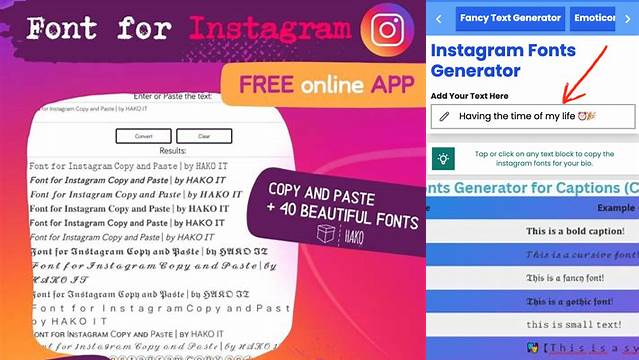
Instagram Fonts: Generate Cool Fonts For Your Bio & Captions
Hey guys! Ever scrolled through Instagram and seen some super cool fonts in captions or bios and wondered how to get them? You're not alone! Instagram fonts are a fantastic way to make your profile stand out, express your personality, and grab attention. But here's the thing: Instagram itself doesn't offer a ton of font choices. So, how do people achieve those funky, stylish texts? That's where IG Fonts Generator tools come into play, and we're going to dive deep into everything you need to know about them. These fantastic resources, often found on sites like igfonts.io, allow you to generate a variety of eye-catching fonts that you can easily copy and paste into your Instagram bio, captions, comments, and even stories. The beauty of these tools lies in their simplicity – you just type your text, and the generator presents you with a myriad of font options to choose from. This opens up a world of creative possibilities, enabling you to inject your personal flair into your Instagram presence. You can use different fonts to emphasize key points in your captions, add a touch of elegance to your bio, or simply make your profile more visually appealing. The strategic use of fonts can significantly enhance your brand identity on Instagram. Consistent use of specific fonts can make your posts and profile instantly recognizable, helping you to build a strong and cohesive brand image. Think of it as adding a unique visual signature to your content. Moreover, the novelty of different fonts can capture the attention of your followers. In a feed saturated with standard text, a stylish font can be the difference between a scroll-past and an engagement. Experimenting with various fonts can also be a fun way to express your creativity and showcase your personality. Whether you're aiming for a playful vibe, a sophisticated look, or something completely unique, the right font can help you convey your message more effectively. So, let's explore the world of Instagram fonts and discover how you can use them to elevate your Instagram game!
What are Instagram Fonts and Why Do They Matter?
Okay, so what exactly are these magical Instagram fonts we're talking about? Well, Instagram, in its standard form, offers a limited selection of fonts. To get those fancy, cursive, or bold texts you see on other profiles, you need a little help. This is where IG Fonts Generator tools, like the one found at igfonts.io, become your best friend. These tools utilize Unicode characters – a vast library of symbols and characters – to create font styles that aren't natively available on Instagram. It's kind of like a clever workaround that allows you to use a huge variety of unique fonts without any complicated coding or software. The magic behind these generators lies in their ability to transform your plain text into stylish variations that Instagram recognizes and displays correctly. When you type your message into the generator, it instantly converts your text into a range of font options, each crafted using a different set of Unicode characters. This process allows you to create everything from elegant cursive scripts to bold, attention-grabbing headlines, all with a simple copy and paste. This is why Instagram fonts are so important. In a world of endless scrolling, you need to grab attention! A well-chosen font can make your bio more readable, your captions more engaging, and your overall profile more memorable. Think about it: a bold, eye-catching font in your bio can instantly highlight your brand's personality or a special offer. A playful, handwritten-style font in your stories can add a personal touch and make your content feel more authentic. And a consistent use of specific fonts across your posts can help build a strong visual identity for your brand. Beyond aesthetics, fonts can also play a crucial role in conveying the tone and message of your content. A formal, serif font might be perfect for a professional announcement, while a quirky, sans-serif font could be ideal for a fun, lighthearted post. The ability to choose from a diverse range of fonts allows you to tailor your message to your audience and create a more impactful connection. Moreover, using unique fonts can help you stand out from the crowd. With millions of users vying for attention on Instagram, having a distinct visual style is essential for cutting through the noise. By incorporating different fonts into your content, you can create a unique and memorable presence that sets you apart from your competitors. Ultimately, Instagram fonts are a powerful tool for enhancing your online presence. They allow you to express your creativity, strengthen your brand identity, and connect with your audience in a more meaningful way. So, let's dive deeper into how you can use these fonts to transform your Instagram game!
How to Use an IG Fonts Generator (Like igfonts.io): A Step-by-Step Guide
Alright, let's get practical! How do you actually use an IG Fonts Generator like igfonts.io? Don't worry, it's super easy, and I'm going to break it down step-by-step. Trust me, you'll be rocking those stylish fonts in no time! These generators are designed to be user-friendly, ensuring that anyone, regardless of their technical skills, can create stunning text variations with ease. The process is incredibly straightforward, making it accessible to both beginners and seasoned Instagram users. Whether you're looking to add a touch of flair to your bio, craft attention-grabbing captions, or spice up your stories, these tools provide a hassle-free way to elevate your content. The key advantage of using an IG Fonts Generator is its simplicity. There's no need to download any software, install complex applications, or learn intricate design techniques. All you need is a web browser and a creative idea. The online interface of these generators is designed to be intuitive, guiding you through the process with clear instructions and visual cues. This ease of use allows you to focus on the creative aspect of your content, rather than getting bogged down in technical details. Moreover, the real-time preview feature of most IG Fonts Generators is a game-changer. As you type your text, you can instantly see how it looks in various fonts, allowing you to experiment and choose the perfect style for your message. This eliminates the guesswork and ensures that the final result aligns with your vision. The ability to visualize your text in different fonts as you create it is a powerful tool for crafting compelling content. It allows you to fine-tune your message and ensure that it resonates with your audience. Whether you're aiming for a bold statement or a subtle touch of elegance, the real-time preview helps you make informed decisions about your font choices. So, let's walk through the steps together and unlock the full potential of these amazing tools. By the end of this guide, you'll be a pro at creating eye-catching text that will make your Instagram profile shine.
- Head to an IG Fonts Generator: Open your web browser (Chrome, Safari, Firefox – whatever you prefer!) and go to a site like igfonts.io. There are tons of these generators out there, but igfonts.io is a great, reliable option.
- Type Your Text: You'll usually see a big text box where you can type whatever you want. This could be your bio, a caption, a comment – anything!
- Scroll Through the Font Options: As you type, the generator will automatically create a bunch of different font styles for your text. Scroll down and browse the options. You'll find everything from cursive and bold to bubble letters and cool symbols.
- Copy Your Favorite Font: Once you find a font you love, simply click the "Copy" button next to it. This will copy the text in that font to your clipboard.
- Paste into Instagram: Now, head over to Instagram and go to where you want to use your new font. This could be your bio (Edit Profile), a caption (when posting a photo or video), a comment, or even an Instagram Story (using the text tool). Paste the text (usually by long-pressing and selecting "Paste") into the text box.
- Ta-da! You're Done! Your text will now appear in your chosen font on Instagram. Pretty cool, right?
Tips for Using Instagram Fonts Effectively
Okay, you know how to use an IG Fonts Generator, but let's talk strategy! How do you use Instagram fonts effectively? It's not just about throwing a fancy font on everything; it's about using them to enhance your message and brand. The strategic use of Instagram fonts can significantly elevate your content, making it more engaging, memorable, and aligned with your brand identity. However, it's crucial to approach this creative tool with a thoughtful plan. Overusing fonts or choosing styles that clash with your overall aesthetic can have the opposite effect, making your profile look cluttered and unprofessional. Therefore, it's essential to understand the nuances of font selection and how different styles can convey different moods and messages. A key aspect of using Instagram fonts effectively is consistency. If you're aiming to build a strong brand presence, it's wise to choose a few signature fonts and stick with them across your content. This consistency helps create a cohesive visual identity that your followers can easily recognize. Think of your chosen fonts as a part of your brand's personality – they should reflect your values, style, and the overall message you want to convey. On the other hand, a jarring mix of fonts can create a sense of visual chaos and dilute your brand's message. Therefore, it's best to limit your font palette to a few complementary styles that work well together. This doesn't mean you can't experiment, but it's important to maintain a consistent base to ensure a polished and professional look. Another critical consideration is readability. While some fonts may look visually stunning, they might not be easy to read, especially on small screens. It's essential to prioritize clarity over aesthetics, ensuring that your message is easily accessible to your audience. A beautiful font that no one can decipher is ultimately ineffective. Therefore, always test your fonts on different devices and screen sizes to ensure they remain legible. Think about the purpose of your text and choose fonts that align with that purpose. Bold, attention-grabbing fonts might be perfect for headlines or call-to-actions, while more elegant, understated fonts could be ideal for body text or captions. By carefully considering the context in which you're using the font, you can create a more impactful and engaging experience for your audience. So, let's delve into some specific tips that will help you master the art of using Instagram fonts effectively. By following these guidelines, you can ensure that your font choices enhance your content and contribute to a stronger, more cohesive brand presence on Instagram.
- Don't Overdo It: Using too many different fonts can make your profile look cluttered and confusing. Stick to 2-3 fonts max, and use them consistently across your profile.
- Consider Readability: Some fancy fonts look great but are hard to read. Make sure your chosen font is clear and legible, especially on smaller screens.
- Match Your Brand: Choose fonts that reflect your brand's personality. A playful brand might use a quirky font, while a professional brand might opt for something classic and clean.
- Use Fonts for Emphasis: Use different fonts to highlight key words or phrases in your captions or bio. This can help draw attention to important information.
- Test It Out: Before you commit, see how your text looks on different devices and screen sizes. Some fonts might appear differently on a phone versus a tablet.
Common Mistakes to Avoid When Using Instagram Fonts
We've talked about the dos, so now let's chat about the don'ts. There are some common mistakes people make when using Instagram fonts, and I want to make sure you avoid them! Being aware of these pitfalls can save you from creating content that looks unprofessional, confusing, or even off-putting. The ultimate goal is to use fonts to enhance your message and brand, not detract from them. Therefore, it's crucial to understand the potential missteps and how to avoid them. One of the most frequent mistakes is overusing fonts. It's tempting to try out every cool font you come across, but a chaotic mix of styles can create a jarring and inconsistent visual experience for your audience. Imagine a profile where every caption, bio, and story features a different font – it can quickly become overwhelming and difficult to follow. Instead, aim for a cohesive look by sticking to a limited palette of fonts that complement each other and your brand's overall aesthetic. Another common pitfall is neglecting readability. Some fonts, while visually striking, are simply too difficult to read, especially on small screens. This can be particularly problematic in captions or bios, where you want to convey information quickly and effectively. If your audience has to strain their eyes to decipher your message, they're likely to scroll past. Therefore, always prioritize clarity and legibility when selecting fonts. A beautiful font is useless if it's not readable. Furthermore, failing to consider brand consistency is a significant mistake. Your font choices should align with your brand's personality and values. A playful, quirky font might be perfect for a fun, lighthearted brand, but it would likely feel out of place for a more serious, professional brand. Using fonts that don't match your brand's identity can create a disconnect with your audience and dilute your overall message. Think of your fonts as a part of your brand's visual language – they should consistently communicate who you are and what you stand for. Additionally, many users make the mistake of not testing their fonts across different devices. A font that looks great on your computer screen might appear completely different on a smartphone or tablet. This can be due to variations in screen size, resolution, and operating systems. Always test your text on multiple devices to ensure it remains legible and visually appealing. By identifying and avoiding these common mistakes, you can ensure that your use of Instagram fonts enhances your content and contributes to a stronger, more professional online presence. Let's explore these pitfalls in more detail so you can confidently create eye-catching and effective Instagram content.
- Using Too Many Fonts: As mentioned before, stick to a limited number of fonts to maintain consistency.
- Ignoring Readability: Always prioritize fonts that are easy to read, even on small screens.
- Choosing Fonts That Don't Match Your Brand: Your font choices should align with your brand's overall aesthetic and personality.
- Forgetting to Test on Different Devices: Make sure your text looks good on various devices and screen sizes.
- Using Fonts Inappropriately: Avoid using overly fancy fonts for long blocks of text. Save them for headings or short phrases.
Level Up Your Instagram Game with the Right Fonts
So there you have it, guys! Everything you need to know about Instagram fonts and how to use an IG Fonts Generator like igfonts.io. Now you can go out there and create a profile that truly stands out! By mastering the art of font selection, you can transform your Instagram presence from ordinary to extraordinary. Remember, your font choices are a powerful tool for expressing your brand's personality, capturing attention, and creating a memorable visual experience for your audience. It's about more than just aesthetics; it's about crafting a cohesive and impactful message that resonates with your followers. The key takeaway is that Instagram fonts offer a fantastic opportunity to elevate your content and connect with your audience on a deeper level. Whether you're aiming for a playful vibe, a sophisticated look, or something completely unique, the right fonts can help you achieve your goals. However, it's essential to approach font selection with a strategic mindset. Think about your brand's values, your target audience, and the overall message you want to convey. Choose fonts that align with these elements and create a consistent visual identity across your profile. Experiment with different fonts to discover what works best for your brand, but always prioritize readability and clarity. A beautiful font that's difficult to decipher will only frustrate your audience and detract from your message. Also, remember the importance of consistency. While it's tempting to use a wide variety of fonts, sticking to a limited palette of styles will create a more cohesive and professional look. Think of your chosen fonts as part of your brand's visual signature – they should be instantly recognizable and contribute to your overall brand identity. Finally, don't underestimate the power of testing. A font that looks great on your computer screen might appear different on a mobile device. Always test your text on various devices and screen sizes to ensure it remains legible and visually appealing. So, embrace the creative possibilities that Instagram fonts offer and start experimenting! With the right fonts, you can transform your profile into a captivating and engaging space that truly reflects your brand's personality and message. Go ahead, give it a try, and watch your Instagram game reach new heights!
By using IG Fonts Generator tools wisely and following these tips, you can create a visually appealing and engaging Instagram presence. Happy font-ing!